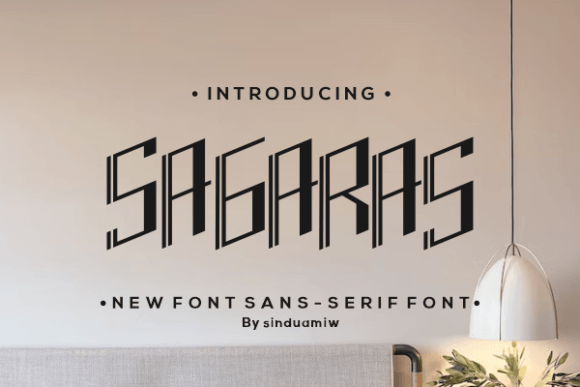
Introducing Sagaras Font - The Epitome of Elegance and Distinction
Unleash your creativity and embark on a typographic journey with Sagaras Font, a captivating display font that exudes both elegance and distinction. This meticulously crafted font boasts a unique charm that sets it apart from the mundane, making it the perfect choice for those seeking to make a lasting impression.
With its striking letterforms and impeccable details, Sagaras Font possesses an undeniable allure that commands attention. Its graceful curves and sharp edges dance harmoniously together, creating a visual symphony that elevates any design project to new heights. Whether you're crafting logos, posters, headlines, or social media graphics, Sagaras Font will elevate your creations with its timeless beauty.
Dive into the depths of Sagaras Font's versatility and discover a world of endless possibilities. Its carefully balanced proportions and meticulously kerned characters ensure effortless readability, making it suitable for both large-scale displays and intimate text settings. From elegant wedding invitations to dynamic marketing campaigns, Sagaras Font effortlessly adapts to your creative vision, allowing your message to shine through with clarity and impact.